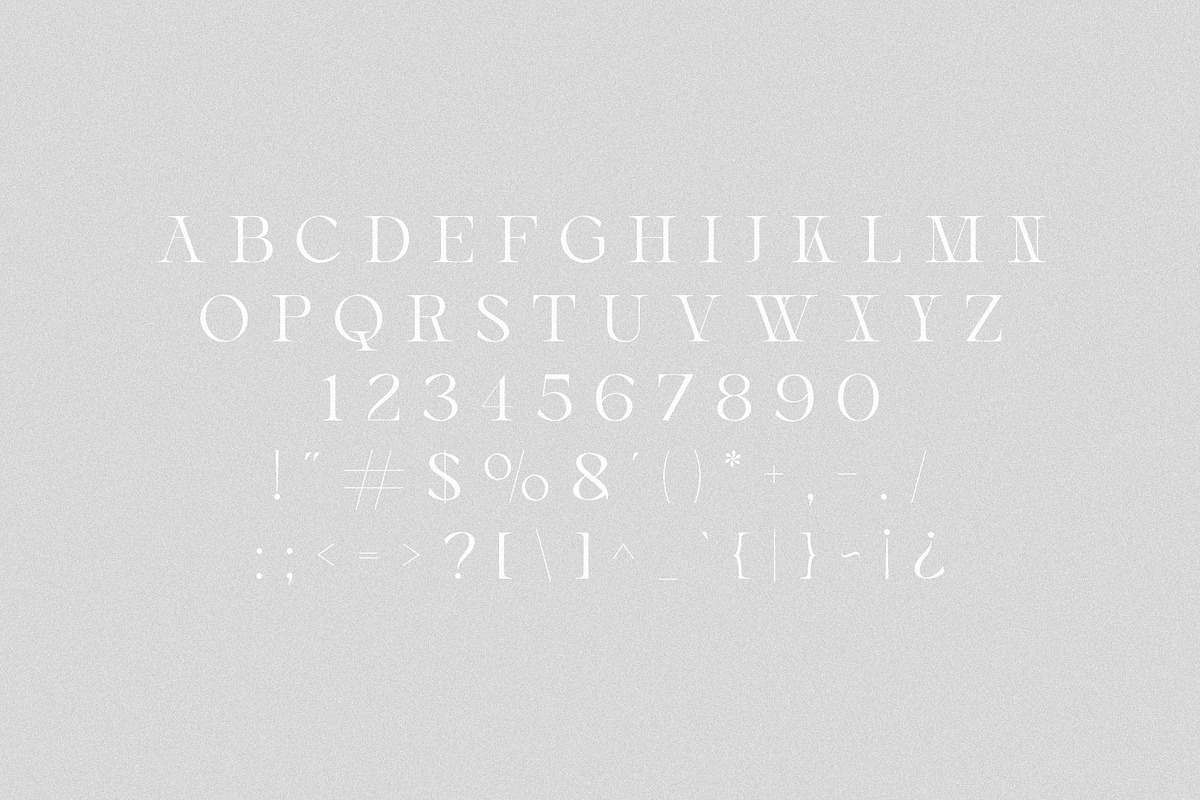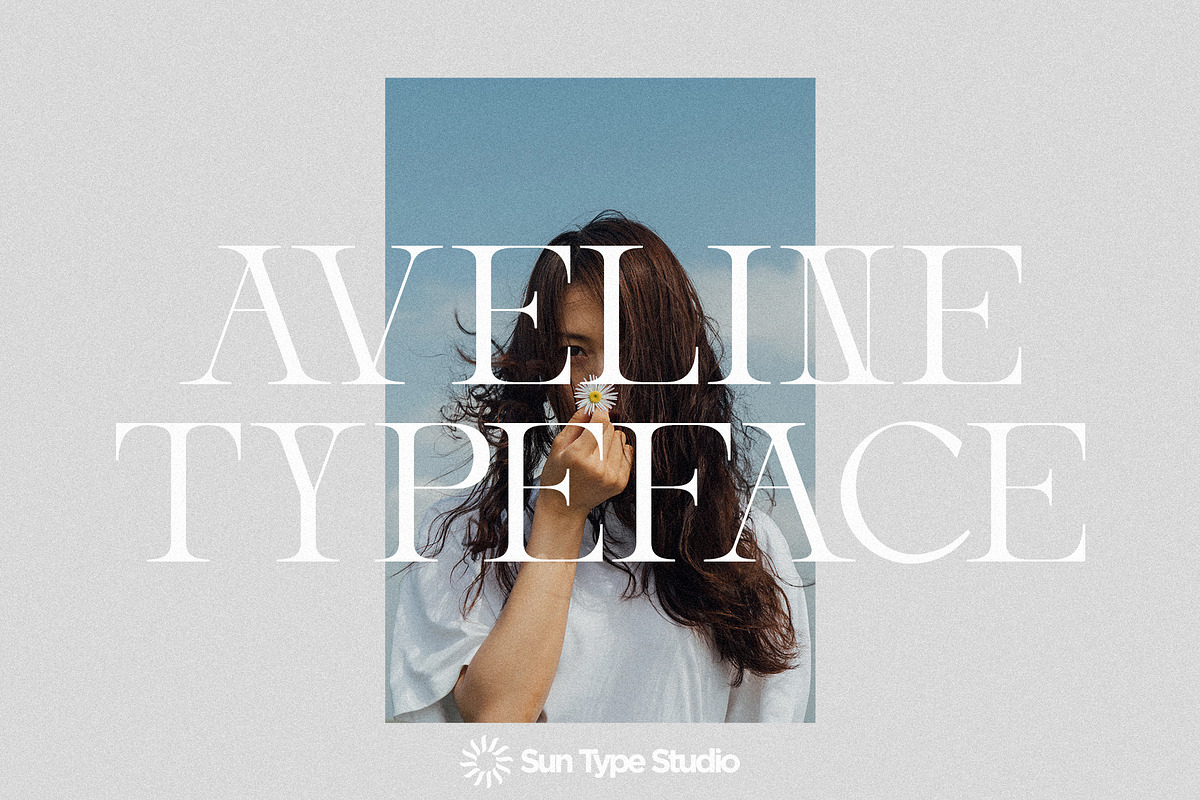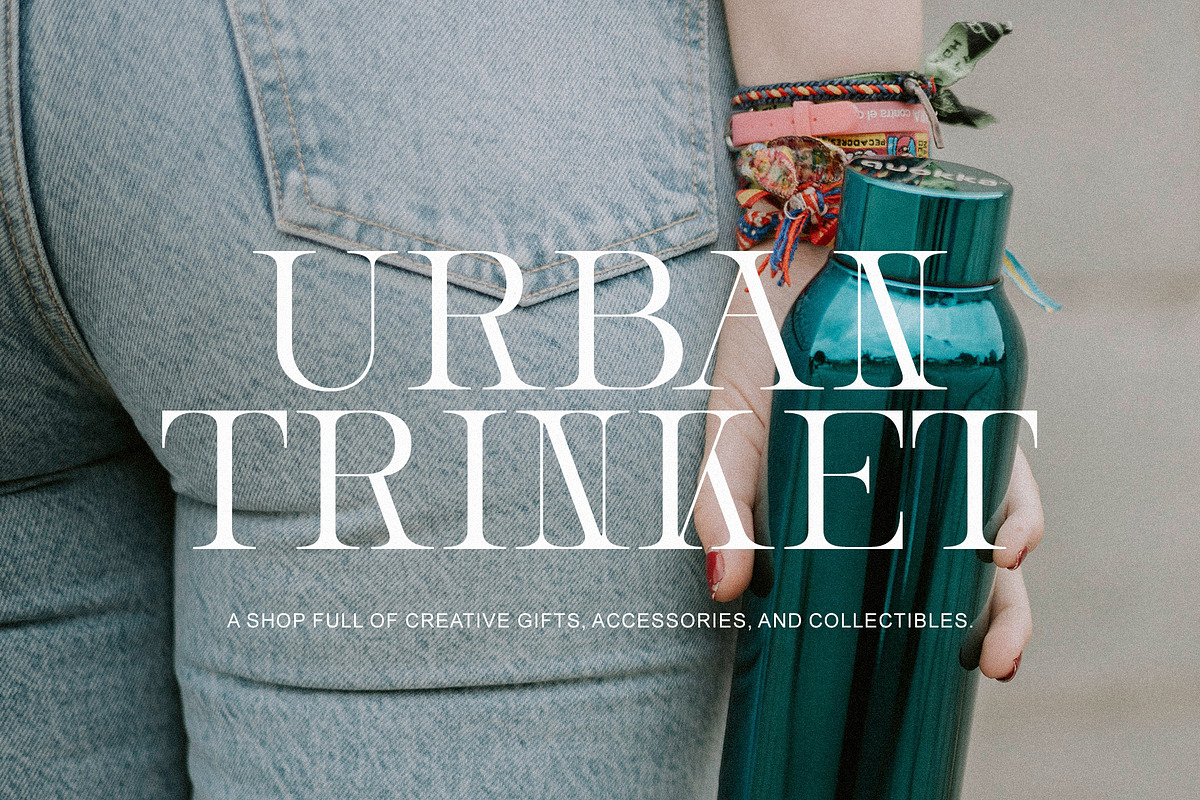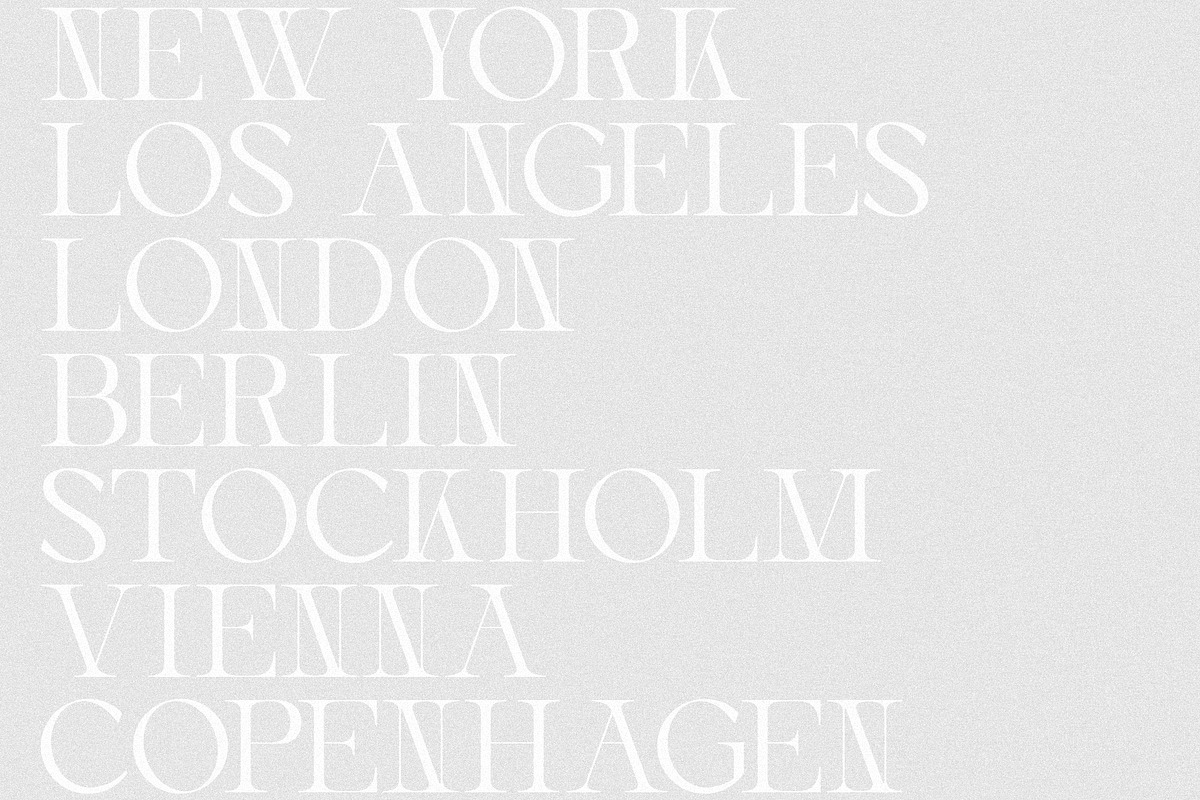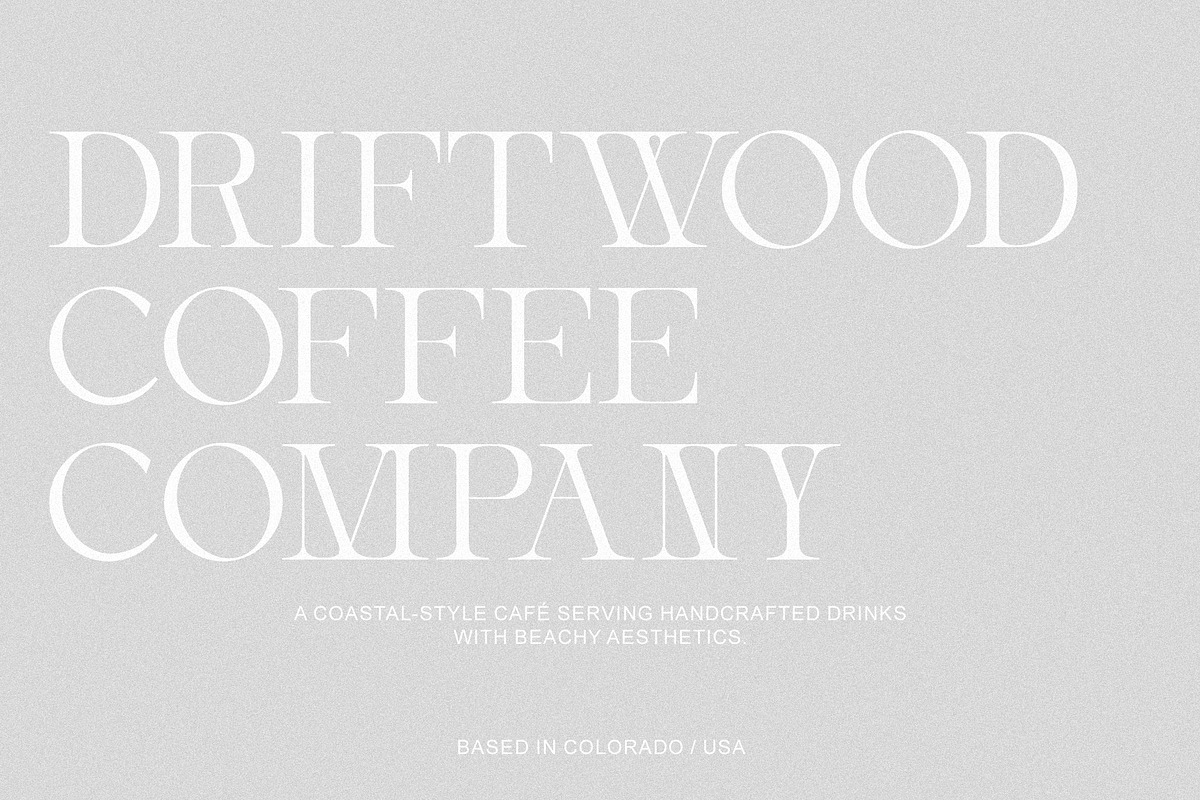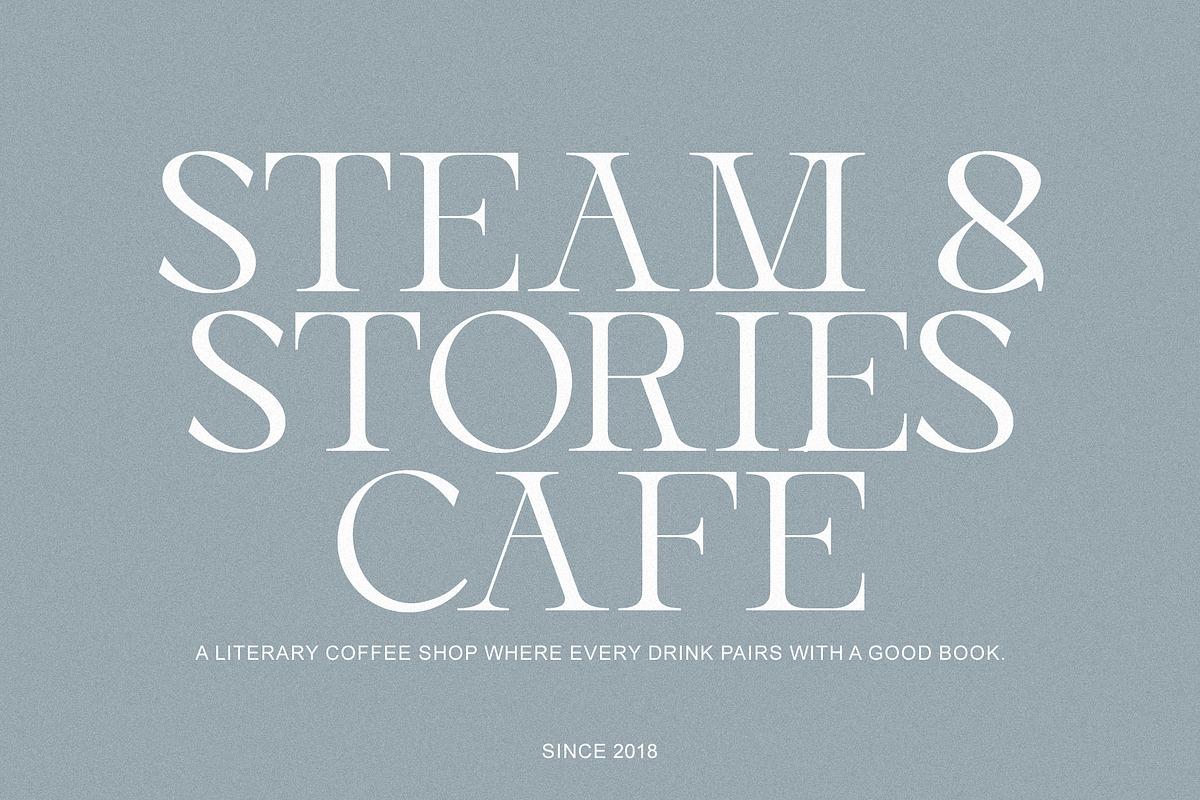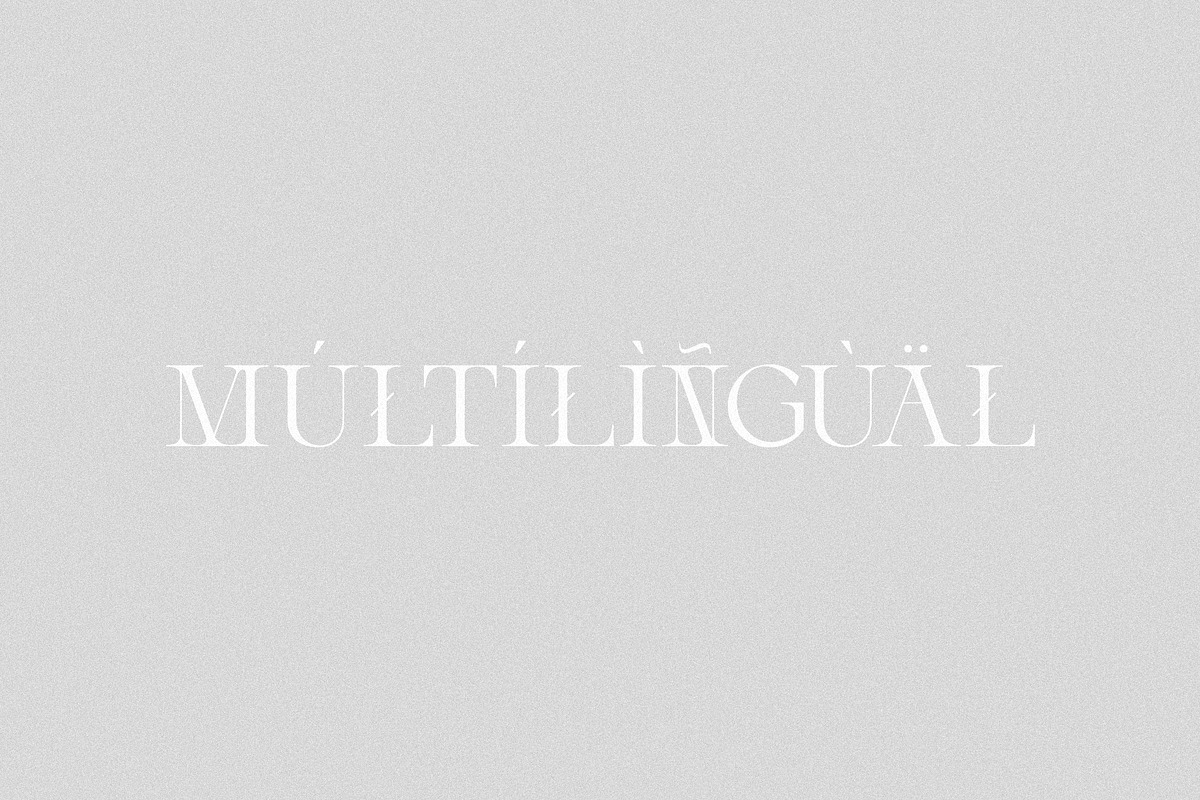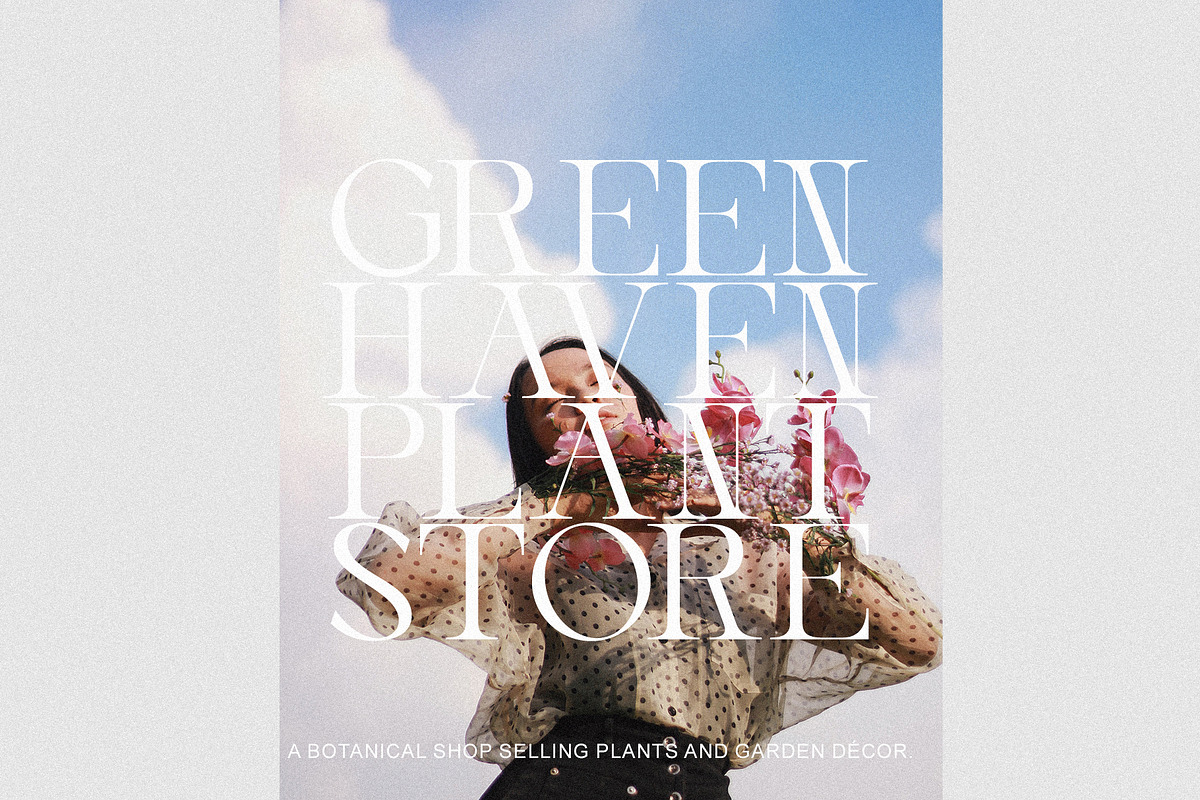
Aveline - Elegant Serif
Aveline – Elegant Serif is a typeface that leans into simplicity and quiet elegance. It has soft curves, gentle contrast, and a natural rhythm that makes text feel smooth and easy to read. It doesn’t try to be loud or overly decorative-instead, it focuses on balance and subtle beauty. That makes it a great fit for things like branding, editorials, invitations, or any project where you want a refined look that still feels approachable and human.